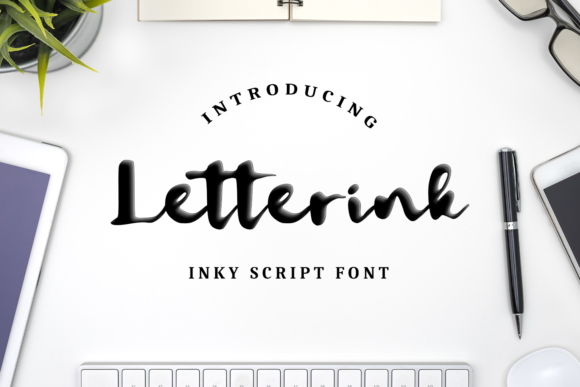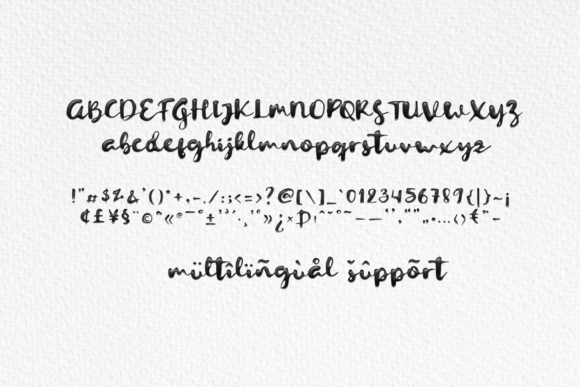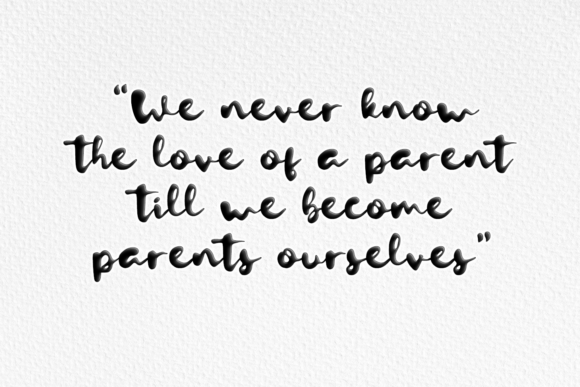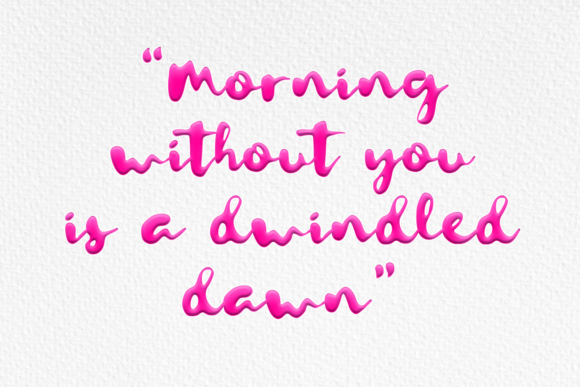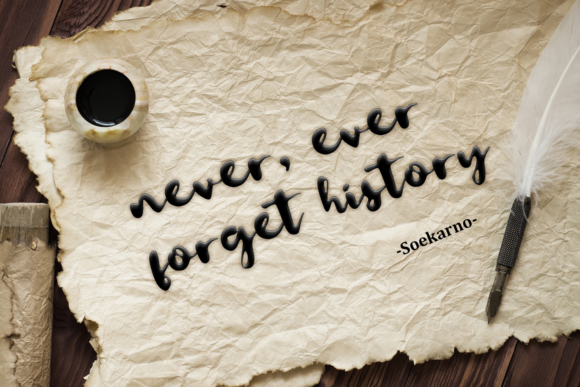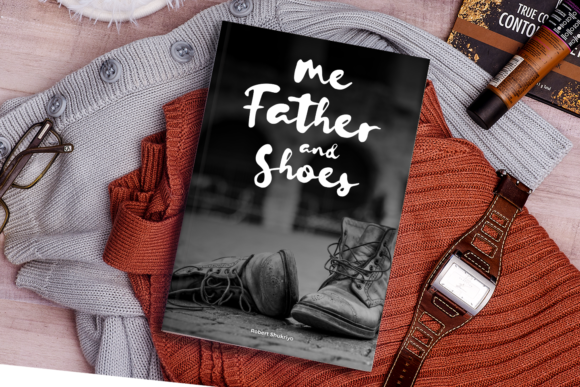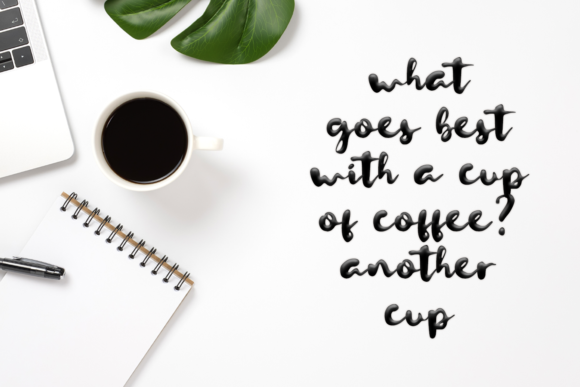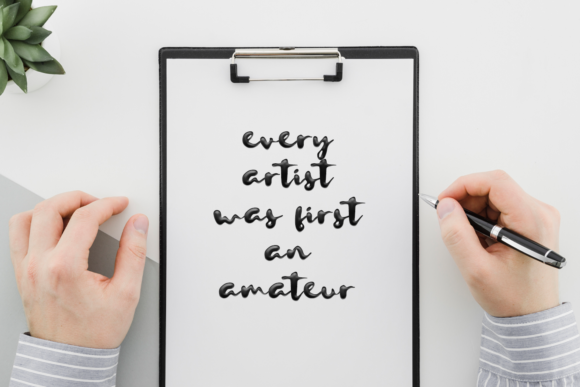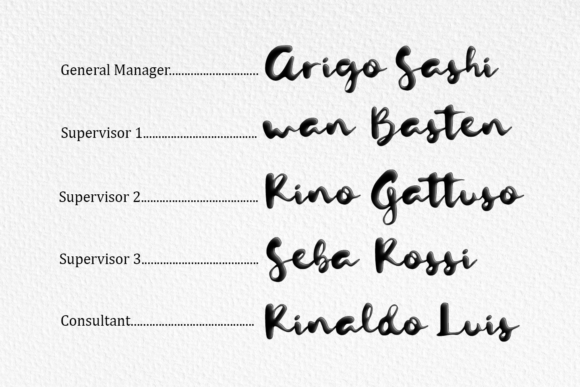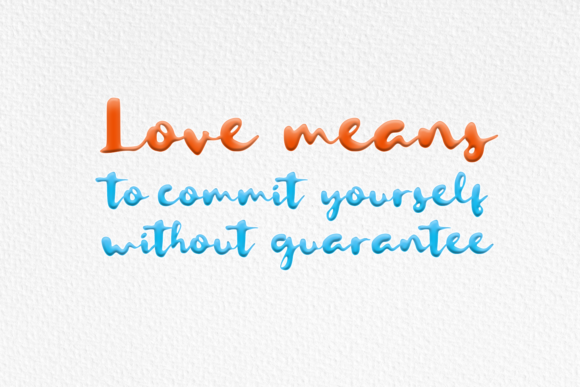
Letterink Font
About Letterink Font
Letterink is a u unique and gorgeous script font. It is great for quotes, stationery, social media posts and much more!